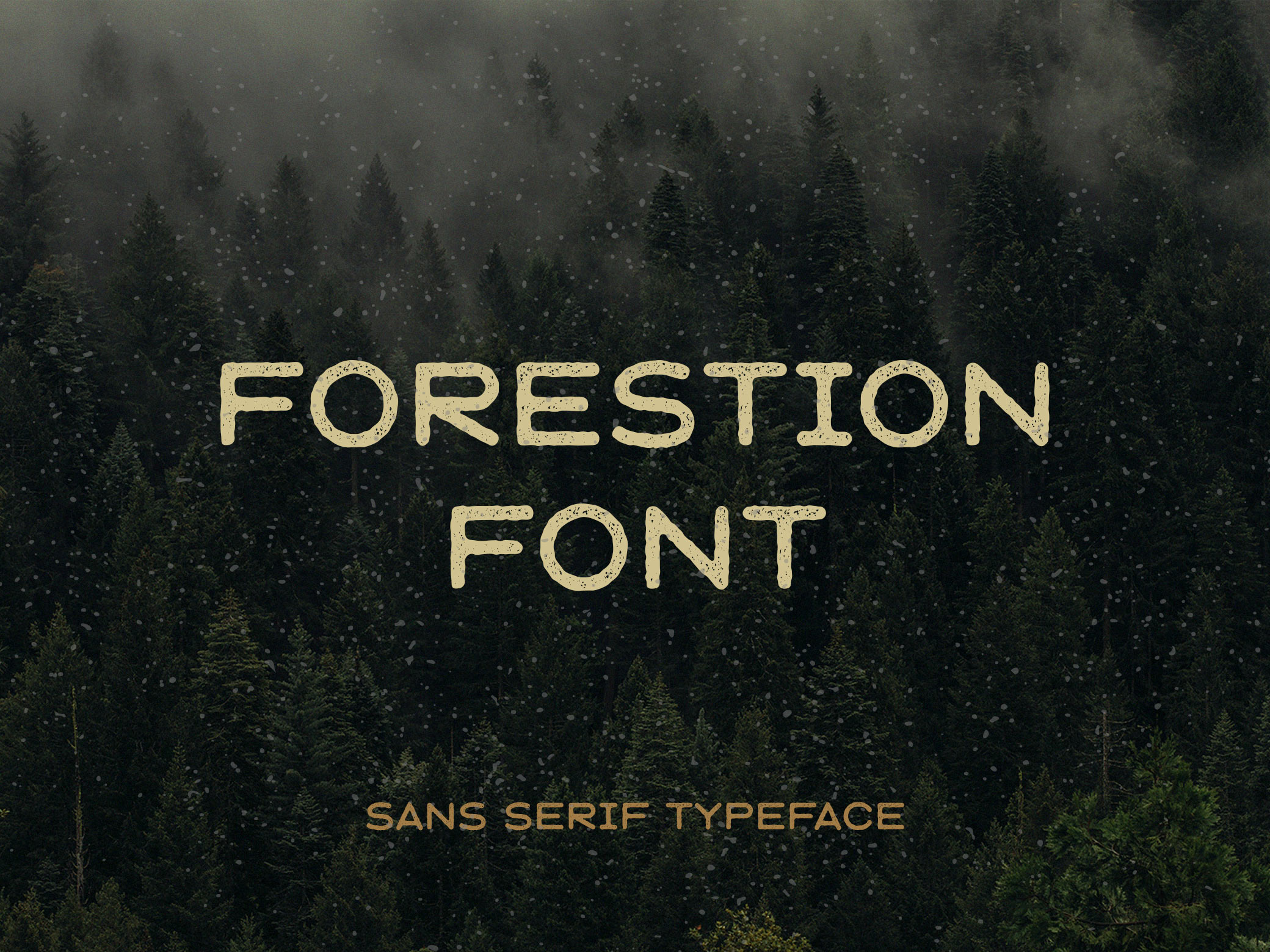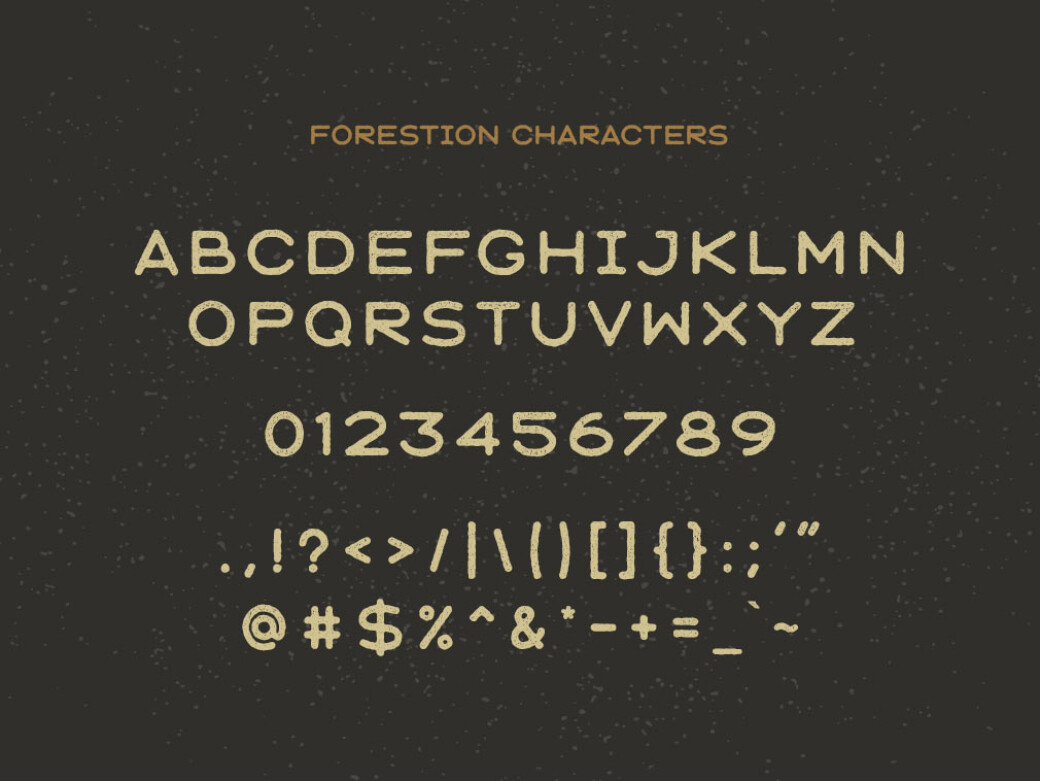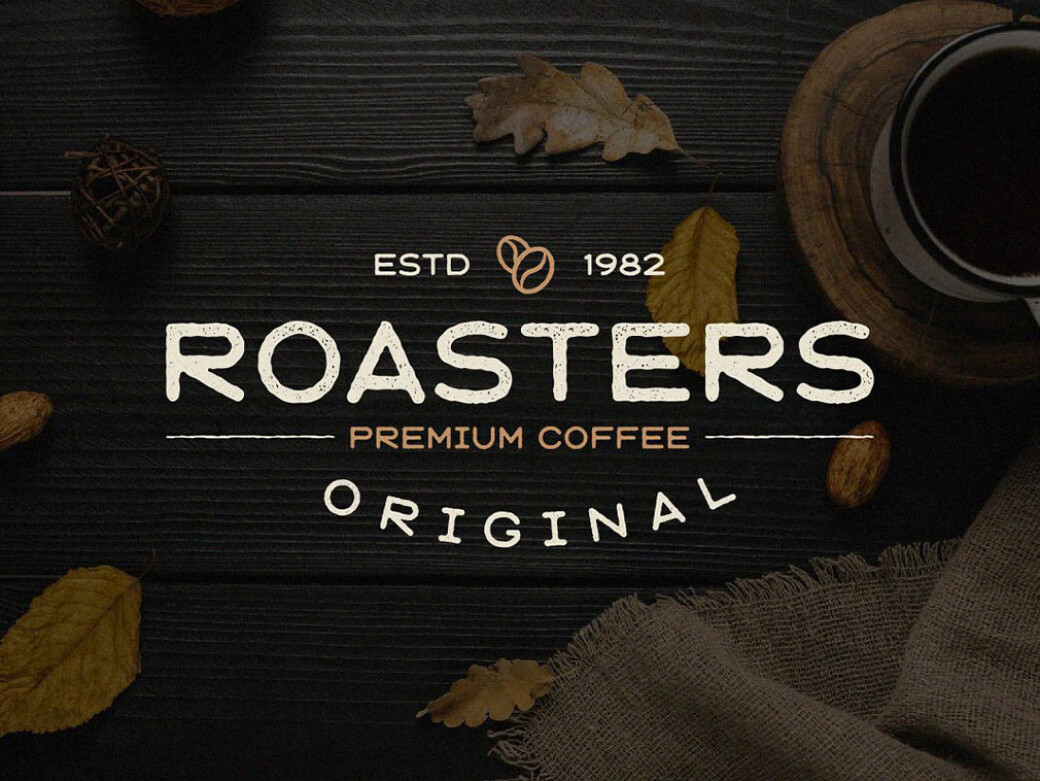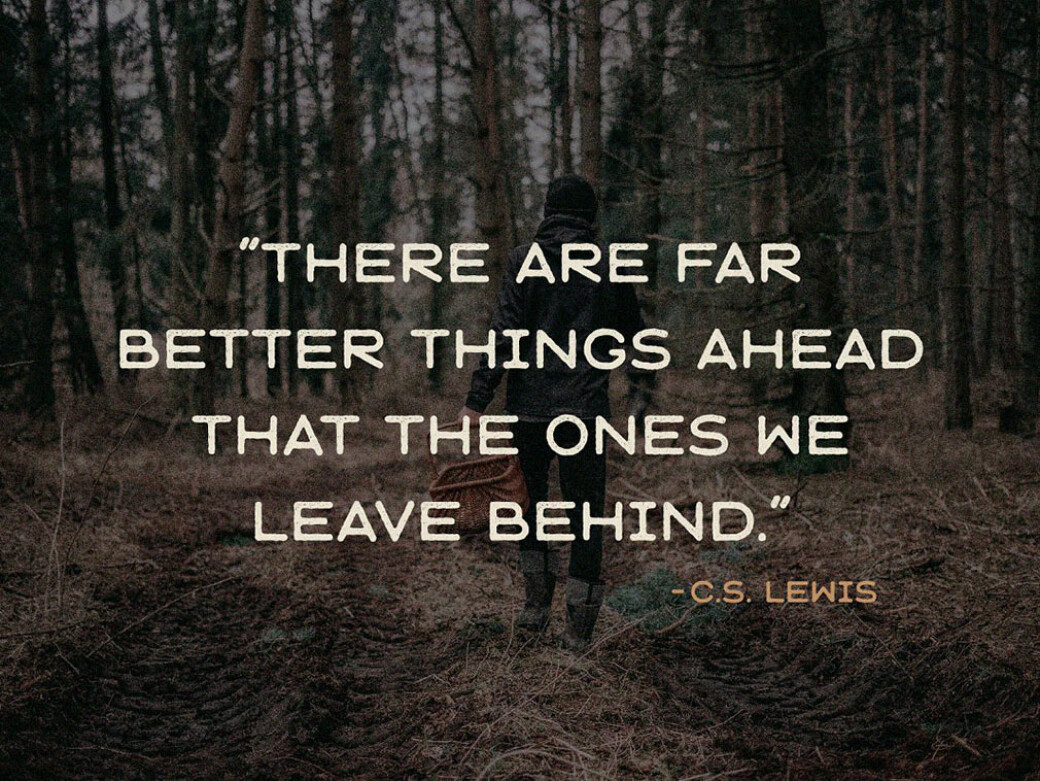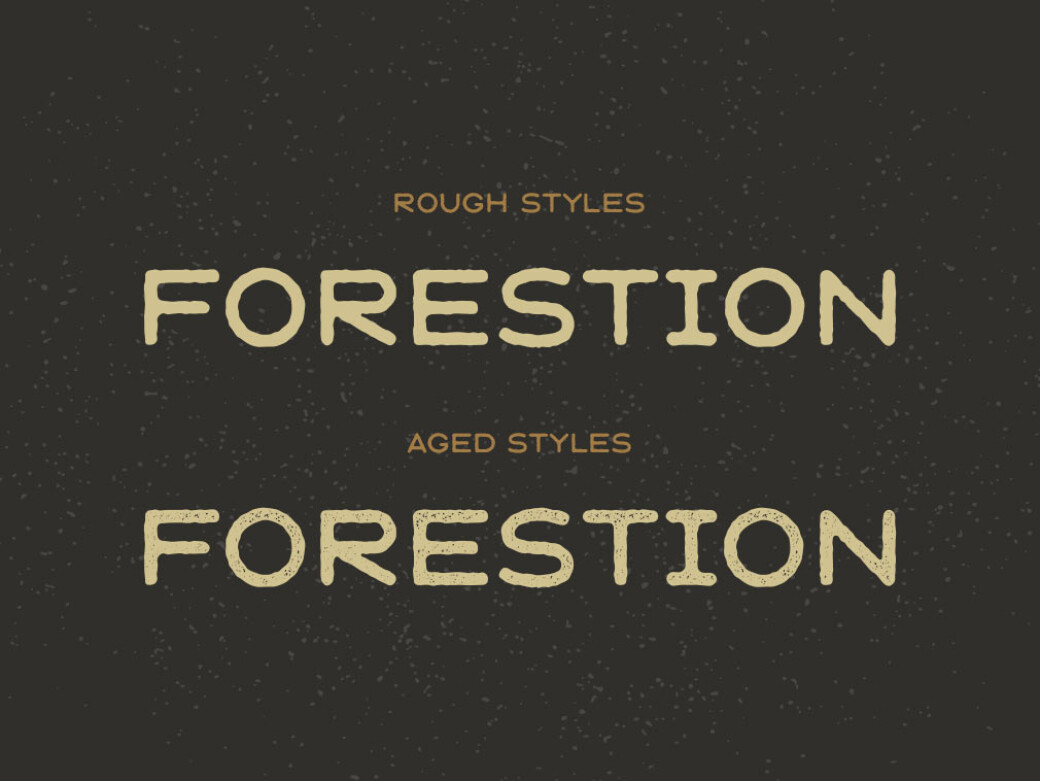
Forestion Display Font
Introducing a new vintage handcrafted free display font you'll totally add to your collection! It's like the one you see imprinted on a wooden box of expensive alcohol, but here it's your call to design something unique.Forestion is a vintage display font that has two styles (rough and aged), each deserving to be checked out for your exclusive design solutions. Packed with uppercase, numbers and punctuation, it has everything you might need to carry out another masterpiece. Use it to bring a vintage aesthetic to your projects such as logo design, t-shirts, presentations, posters, labels, badges and many more!